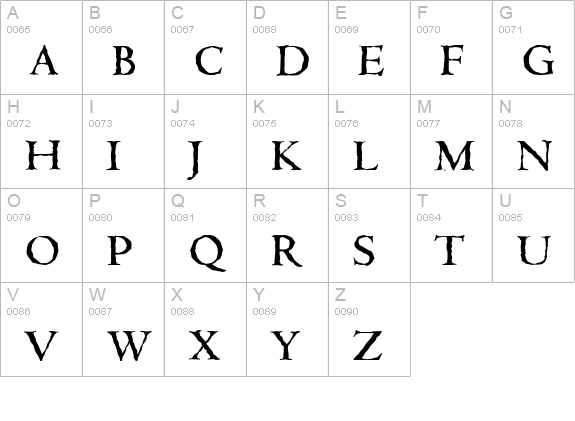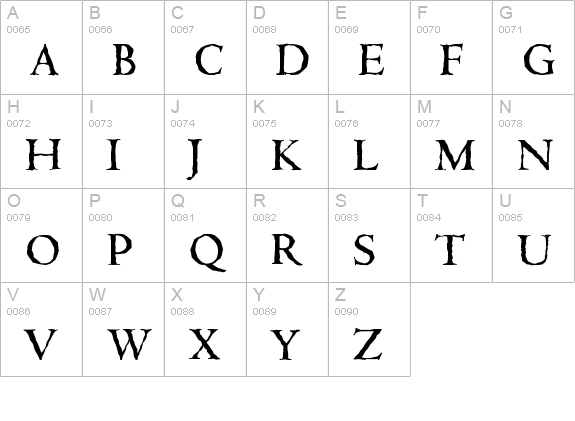
CambridgeAntique-Medium-Regular Font Details
CambridgeAntique-Medium-Regular is a balanced, medium-weight variant in the CambridgeAntique typeface family \xE2\x80\x94 well suited to sub-headlines, navigation, and balanced editorial work.
CambridgeAntique-Medium-Regular font is a timeless and elegant typeface that exudes sophistication and charm. With its intricate details and classic design, this font is perfect for projects that require a touch of vintage elegance. The carefully crafted serifs and graceful curves give it a sense of refined beauty that will elevate any design it is used in. What makes CambridgeAntique-Medium-Regular font even more appealing is that it is available for free download at FontsMarket.com. This means you can easily access this exquisite font without any cost, making it a valuable addition to your font library. Whether you're working on invitations, branding materials, or editorial designs, CambridgeAntique-Medium-Regular font is sure to add a touch of class and sophistication to your projects. Download it today and elevate your designs with this stunning typeface.